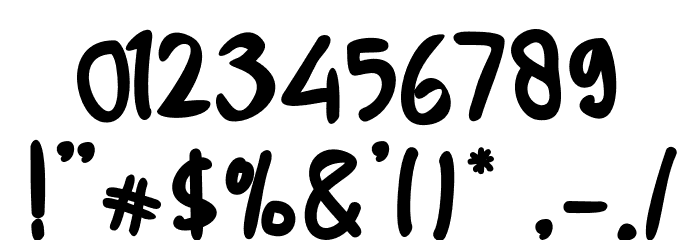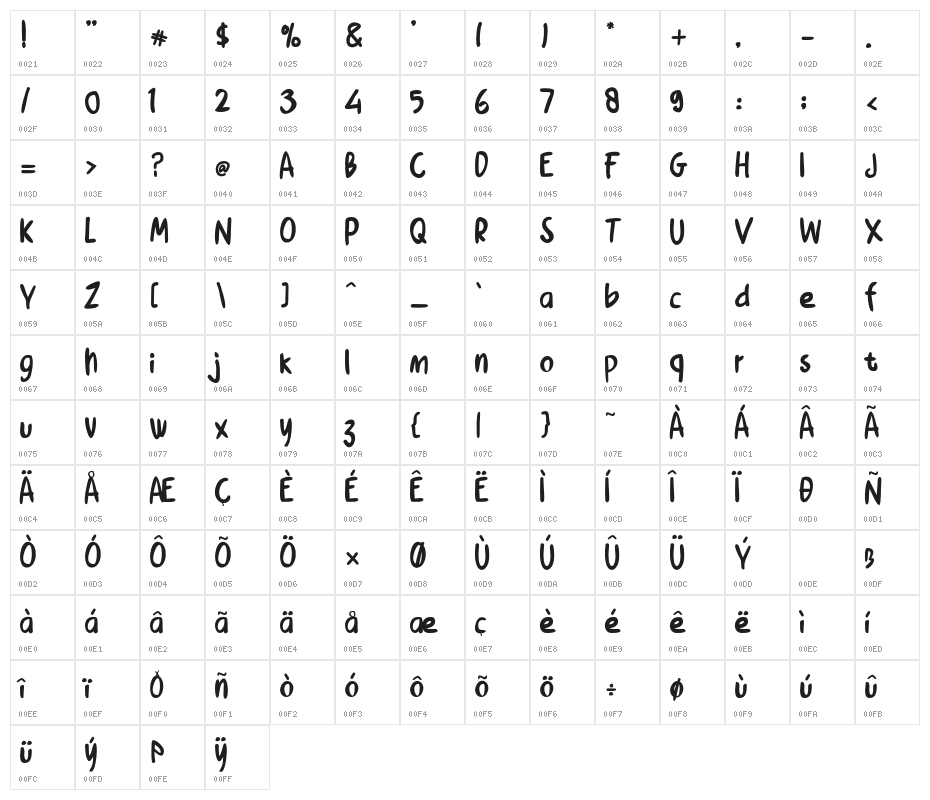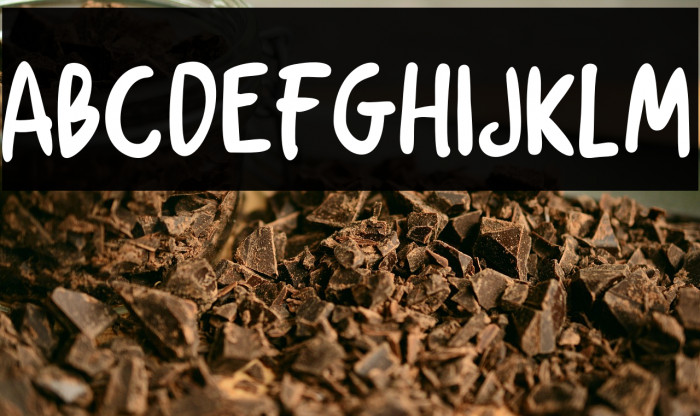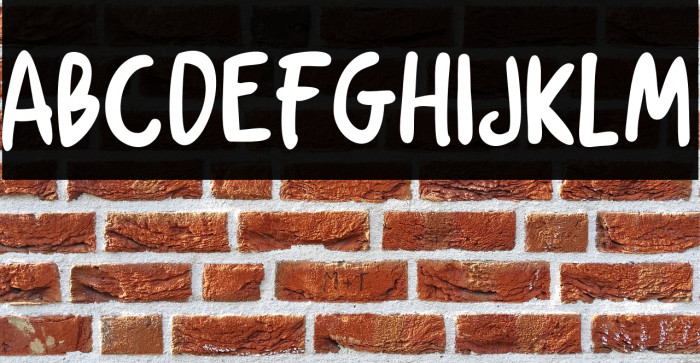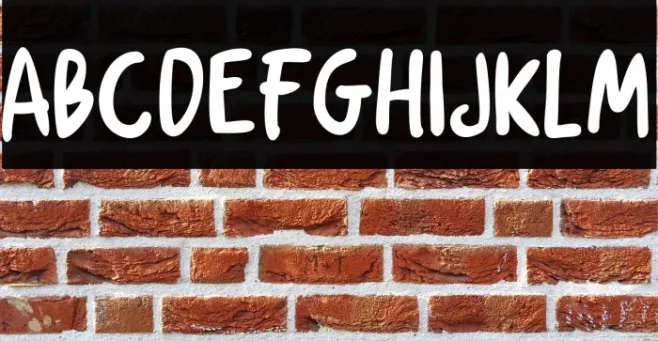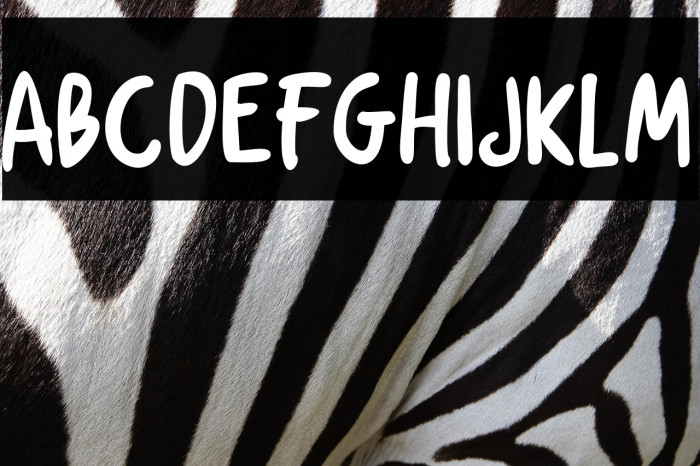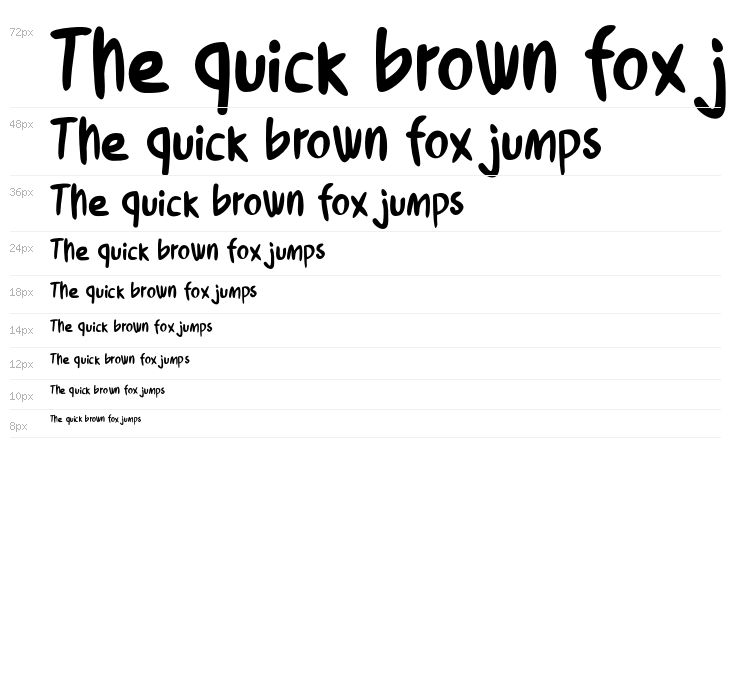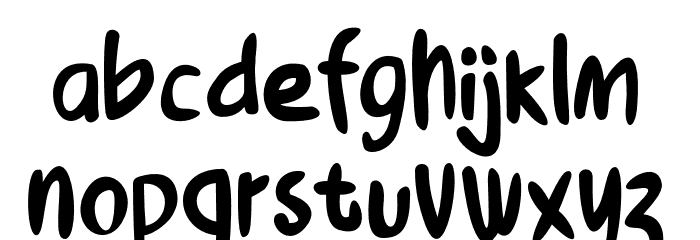
ChickenSoup Font
ChickenSoup Description
This font exudes a playful and casual vibe, characterized by its rounded and slightly irregular letterforms. The strokes are bold and consistent, giving it a friendly and approachable appearance. The uppercase and lowercase letters maintain a uniform style, with a slight slant that adds a dynamic feel. Numbers and special characters are crafted with the same playful essence, ensuring a cohesive look across all text elements. The font's informal style makes it ideal for projects that require a touch of whimsy and creativity.
| Proposed Projects | Ideal for children's books, playful branding, casual invitations, and creative posters. |